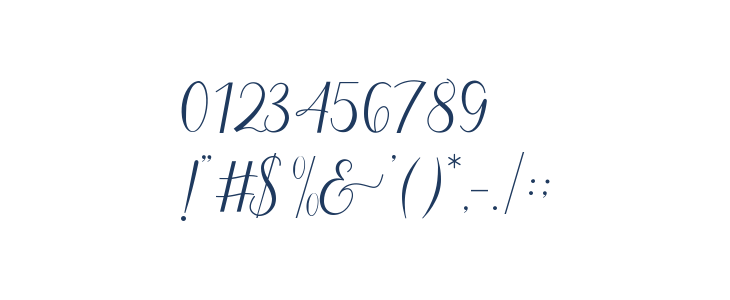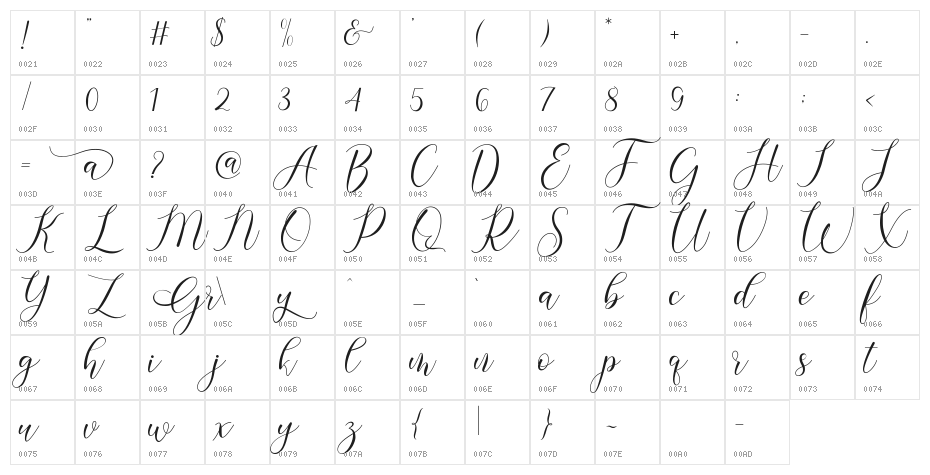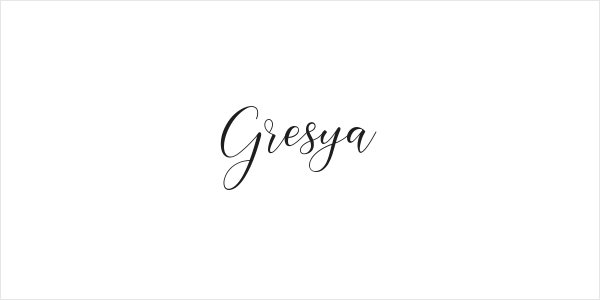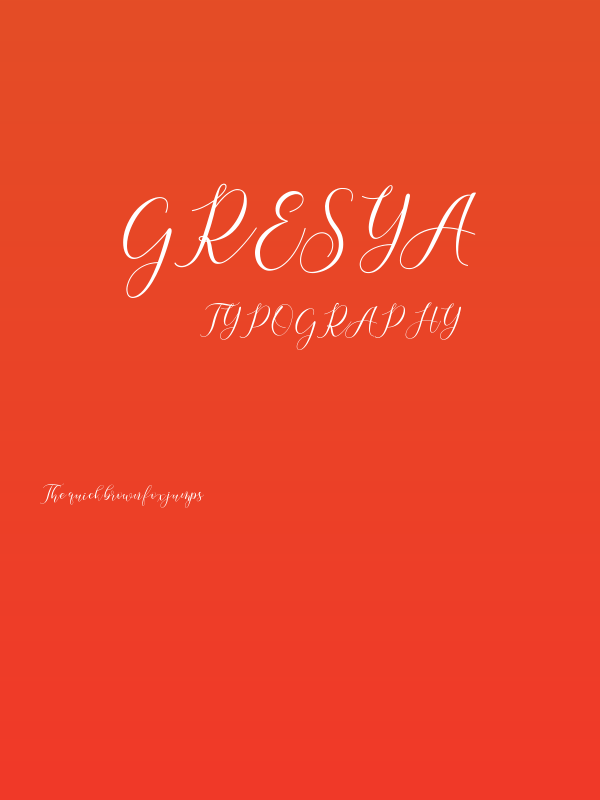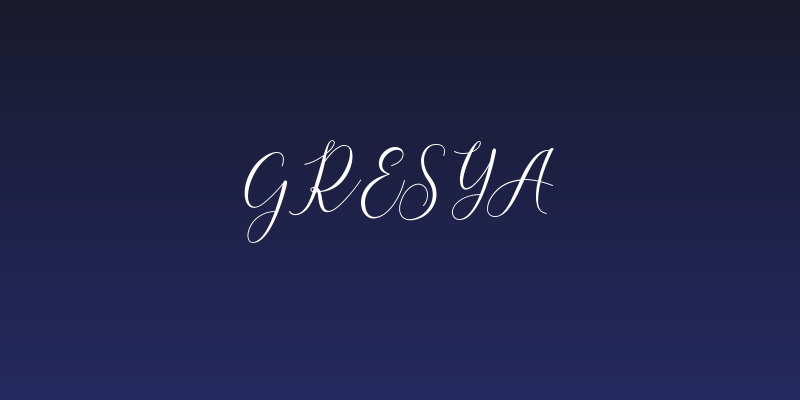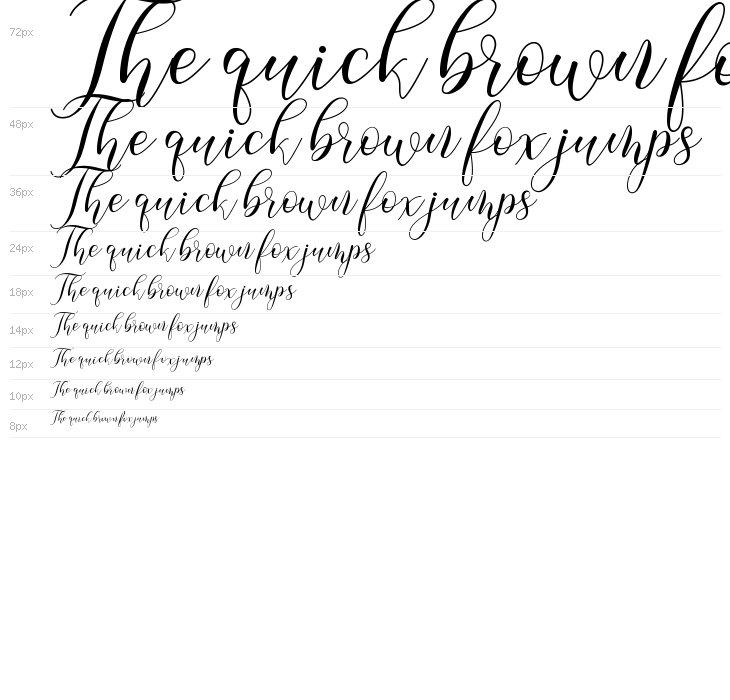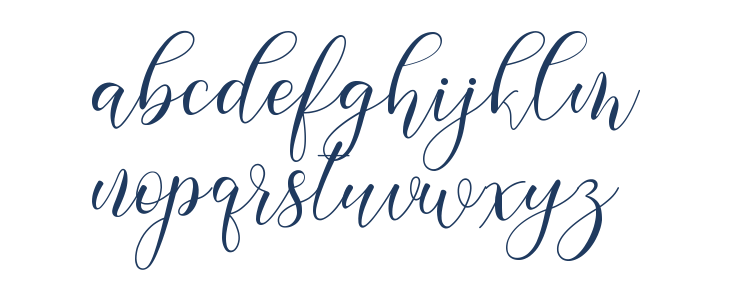
Gresya Font
Gresya Description
This elegant script font features fluid, cursive strokes that convey a sense of sophistication and grace. The uppercase letters are characterized by sweeping loops and flourishes, while the lowercase letters maintain a consistent flow with gentle curves and connections. The numerals are styled to match the cursive theme, offering a cohesive look across all characters. Special characters are thoughtfully designed to complement the overall aesthetic, making this font suitable for a variety of decorative applications. The font's delicate lines and artistic flair make it ideal for projects that require a touch of elegance and refinement.
| Overall Style | Elegant, Decorative |
| Proposed Projects | Wedding invitations, greeting cards, branding, and elegant packaging. |